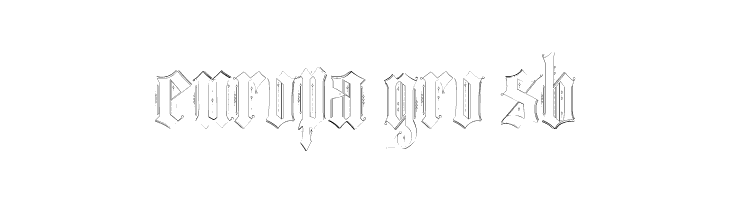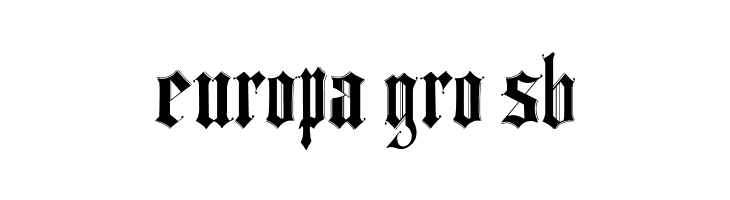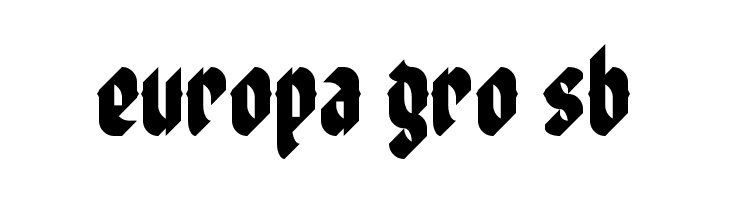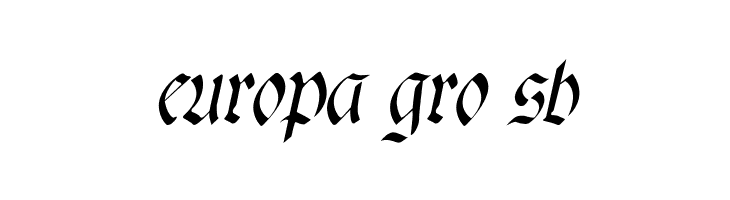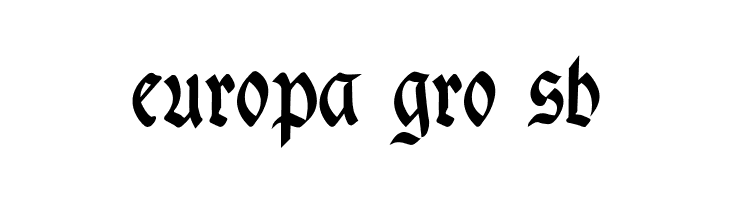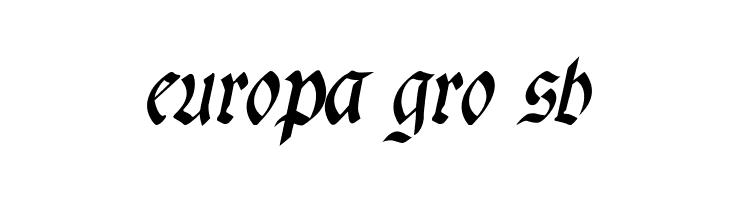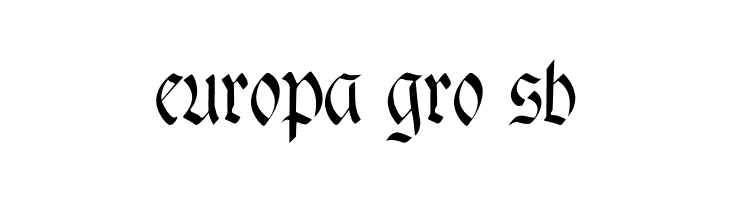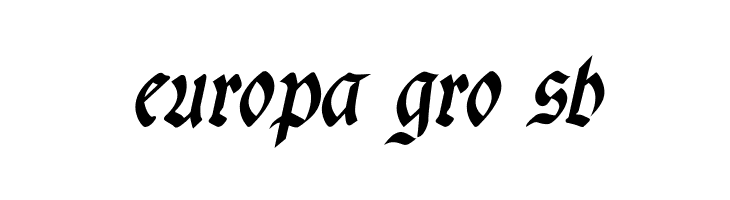
A detailed blackletter font with ornate, medieval-inspired design.
A bold, ornate blackletter font with a medieval aesthetic.
A bold, ornate blackletter font with high contrast and decorative flourishes.
A bold blackletter font with sharp, angular lines and a gothic aesthetic.
A dynamic blackletter font with italicized, high-contrast strokes.
A bold, condensed blackletter font with ornate, angular letterforms.
A bold, italicized blackletter font with sharp, decorative strokes.
An ornate Blackletter font with sharp, angular lines and high contrast.
A bold, italicized blackletter font with condensed, angular strokes.
A bold, shadowed blackletter-style font with intricate details and a three-dimensional effect.